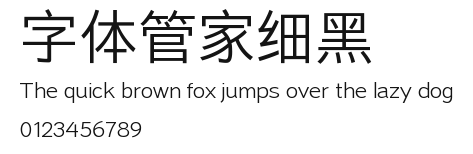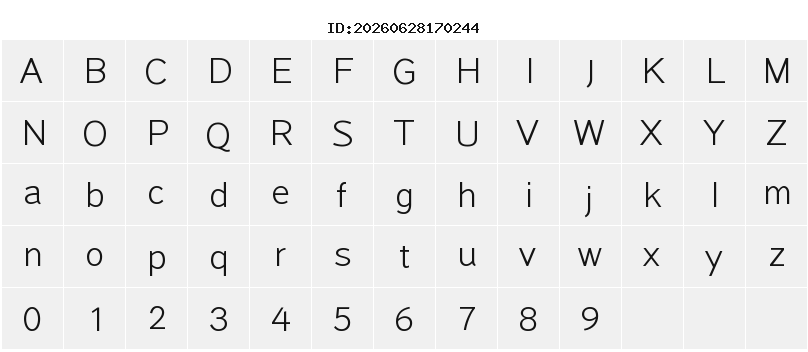
字体管家细黑 Preview
• Font Name: 字体管家细黑
• Manufacturer: 北京奇思众和科技有限公司
• Description: AaHeiTi-Li is a fantastic font with excellent features designed for user interfaces and electronic communications.
About 字体管家细黑.ttf
字体管家细黑.ttf is a modern, elegant sans-serif font designed for ultimate readability and visual harmony. Perfect for branding, headlines, web design, and print materials.